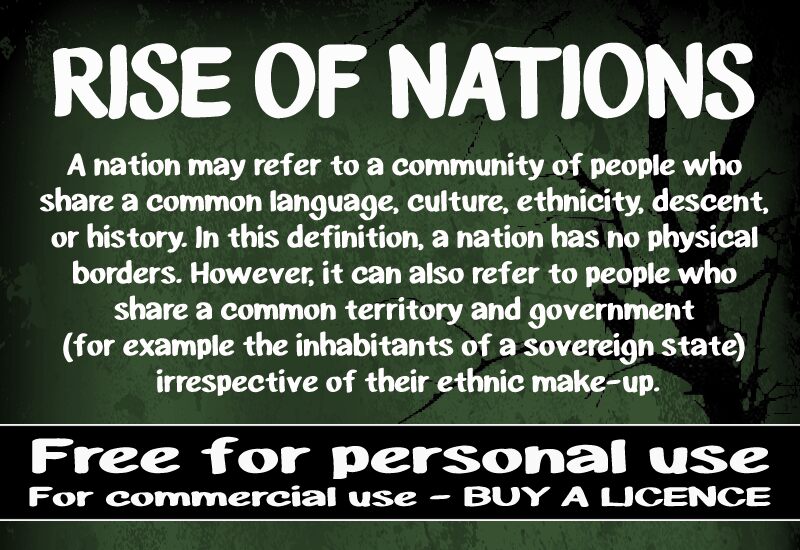
CF Rise of Nations by CloutierFontes is a free handwritten display font with broad, dark strokes and a cheerfully uneven outline. Its letters shift in width and height, mixing blunt corners with soft bends for the look of quickly cut or painted lettering.
Designers working on informal, upbeat projects will find it especially suited to food packaging and festival posters. The generous shapes also fit children's publishing and casual merchandise, where the irregular drawing can become part of an illustrated scene. Its strongest audience is brands and events seeking a handmade voice that feels lively, direct, and slightly unruly.
CF Rise of Nations
Steve Cloutier
CF Rise of Nations Regular is a font by CloutierFontes, designed by Steve Cloutier in 2013.